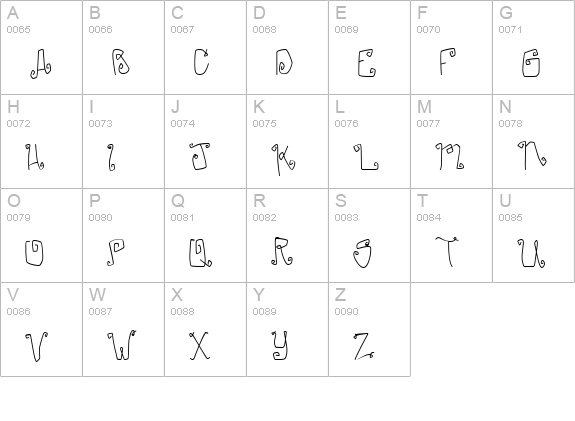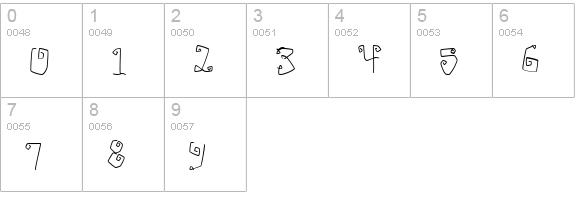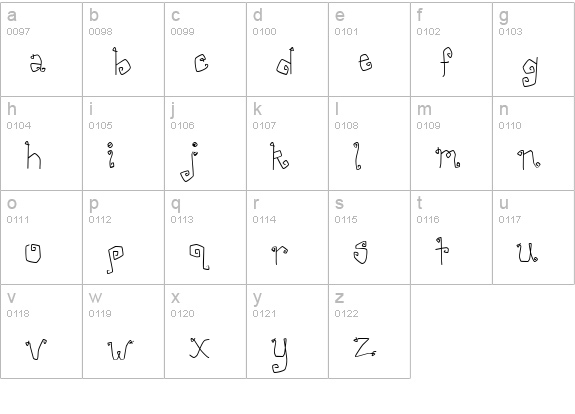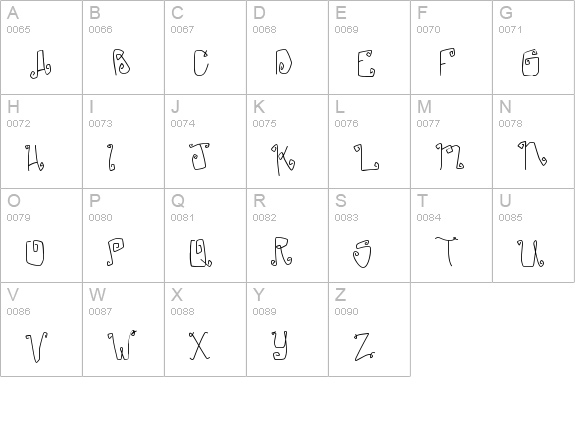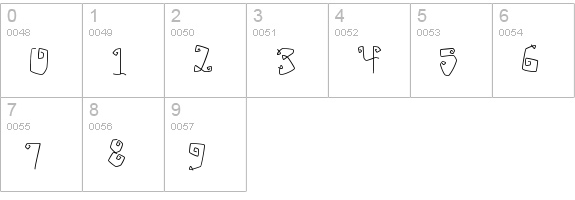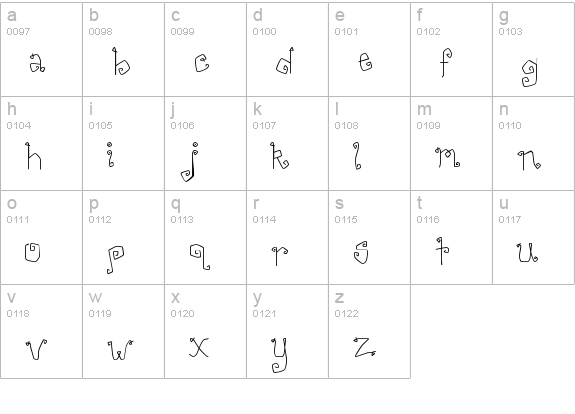
CK Wired Font Details
Introducing CK Wired font, a modern and stylish typeface that exudes a sense of energy and creativity. With its unique wire-like design, CK Wired is perfect for projects that require a contemporary and edgy look. This font is versatile and can be used for a variety of design purposes, such as logos, posters, branding, and more. CK Wired is available for free download at FontsMarket.com, making it easily accessible to designers and creatives looking to add a touch of sophistication to their projects. Whether you're working on a sleek website design or a trendy social media campaign, CK Wired is sure to make a bold statement and leave a lasting impression. Download this font today and let your creativity run wild with CK Wired!